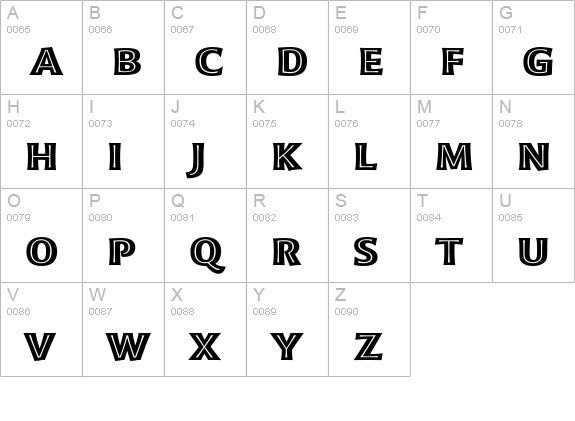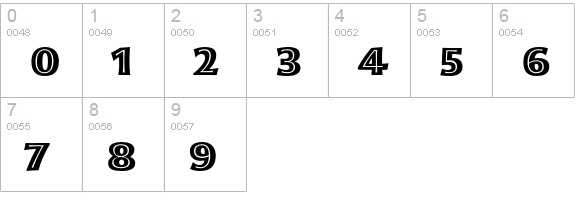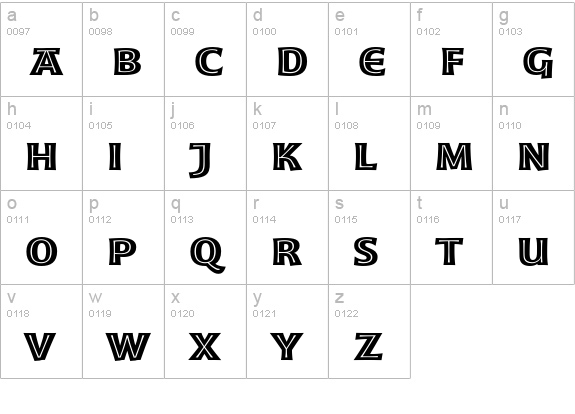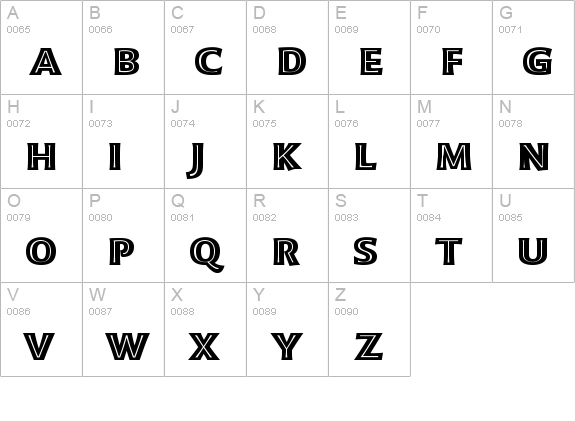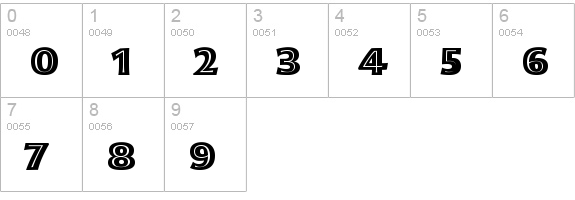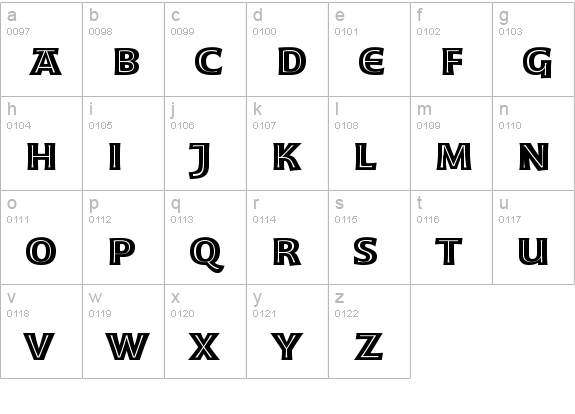
Moonglow Bold Extended is a strong, high-contrast, extended-width variant in the Moonglow typeface family \xE2\x80\x94 well suited to headlines, attention-grabbing titles, and strong calls-to-action.